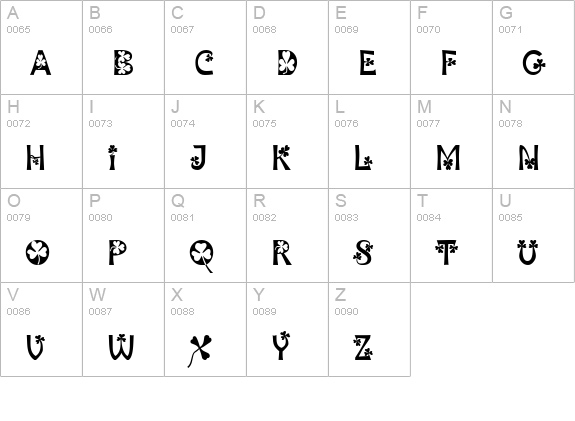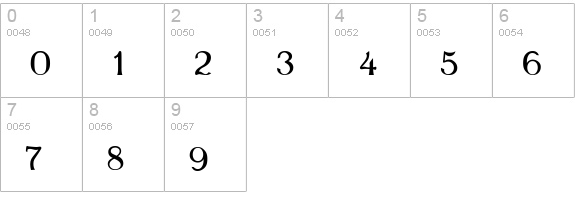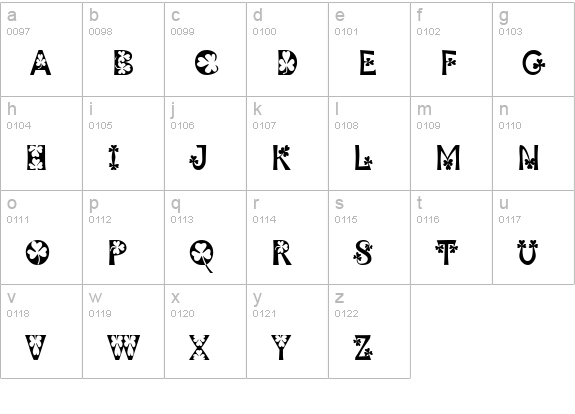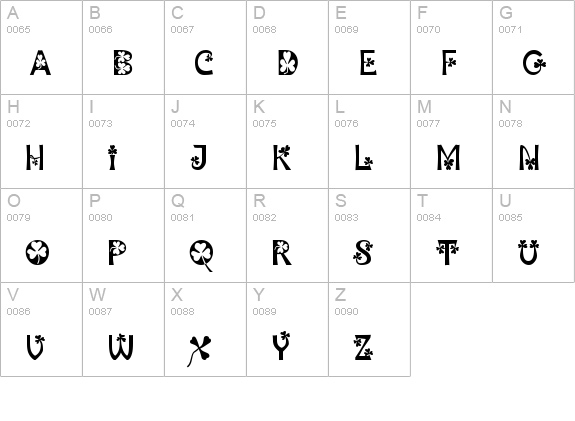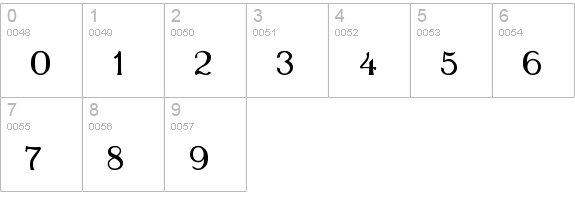
PattyDay Font Details
Introducing PattyDay, a playful and festive font that is sure to add a touch of fun to any design project. With its charming and whimsical letterforms, PattyDay captures the essence of celebration and joy. Whether you're creating invitations for a birthday party, designing a cheerful poster, or crafting a greeting card, this font will bring a lively and vibrant feel to your designs. PattyDay is not only visually appealing, but it is also incredibly versatile. Its clear and legible characters make it suitable for a wide range of applications, from headline text to body copy. The font's unique personality shines through in every letter, adding a delightful touch to your typography. One of the best things about PattyDay is that it is absolutely free! Yes, you read that right – this fantastic font is freely available to download at FontsMarket.com. Now you can enjoy the playful and festive vibes of PattyDay without breaking the bank. Designed with attention to detail, PattyDay offers a wide range of glyphs and ligatures, allowing you to create eye-catching designs with ease. The font's smooth curves and well-balanced proportions make it a pleasure to work with, ensuring that your designs will always look polished and professional. So, whether you're a seasoned designer or just starting out, PattyDay is a must-have font in your collection. Its versatility, charm, and of course, its price (which is free!) make it an invaluable asset for any creative project. Don't miss out on this opportunity to add a touch of celebration to your designs – head over to FontsMarket.com and download PattyDay today!